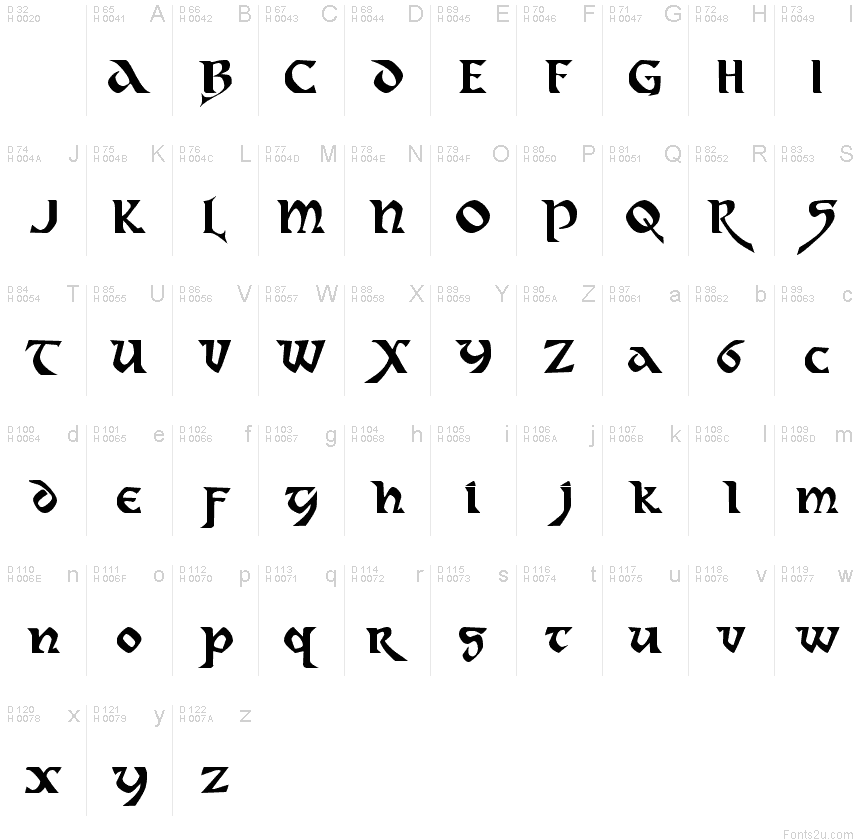
Dahaut
Dahaut font by David F. Nalle is a free decorative gothic font with heavy, inky strokes and carved, sweeping shapes that make each word feel forged rather than simply typed. Its mix of rounded medieval curves and sharp wedge-like cuts gives lines a bold, ceremonial rhythm, so even a short title carries the weight of a crest or chapter heading.
Using Dahaut works beautifully for fantasy book covers, tavern logos, album art, game titles, event posters, merch, and medieval-themed branding where ordinary blackletter feels too rigid. Keep Dahaut large, and pair this free font with a quiet serif or clean sans so those dark, sculpted forms stay front and center.